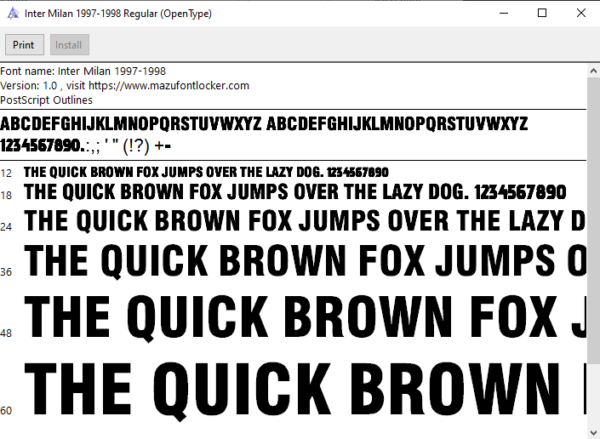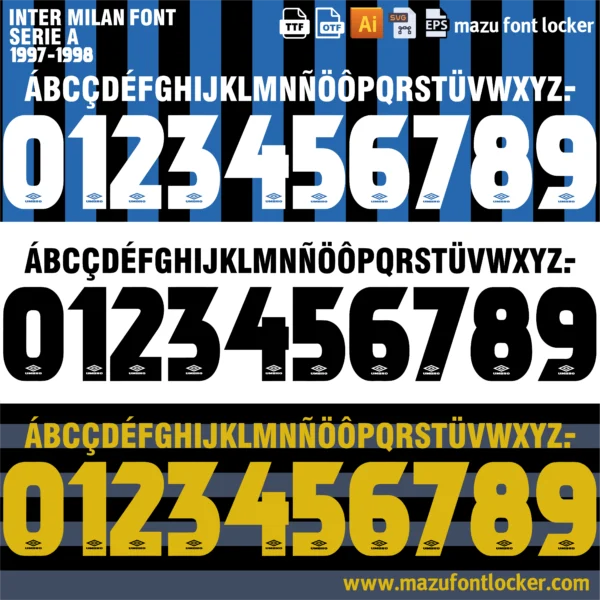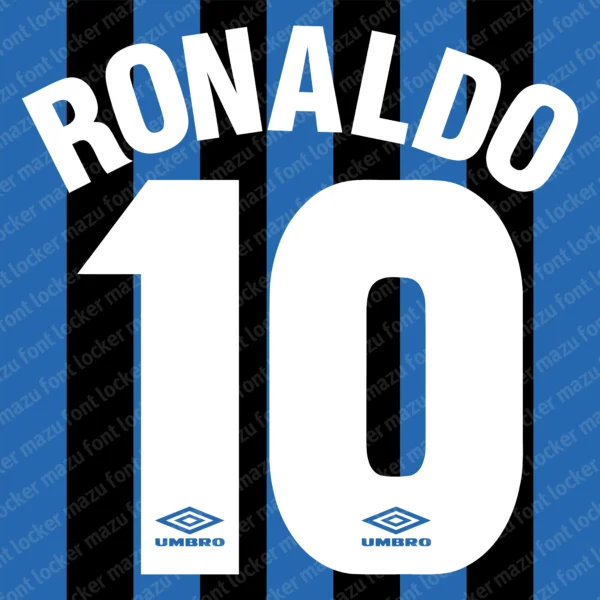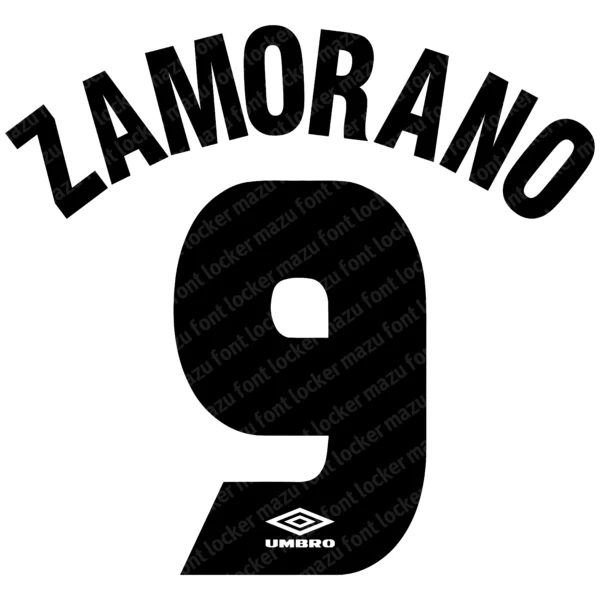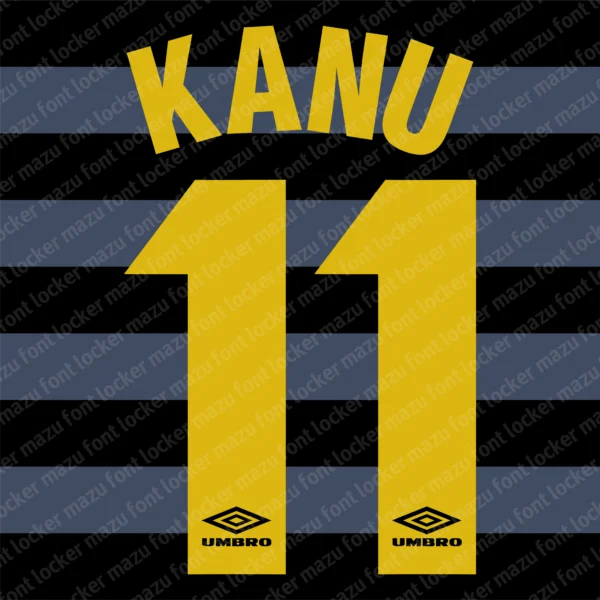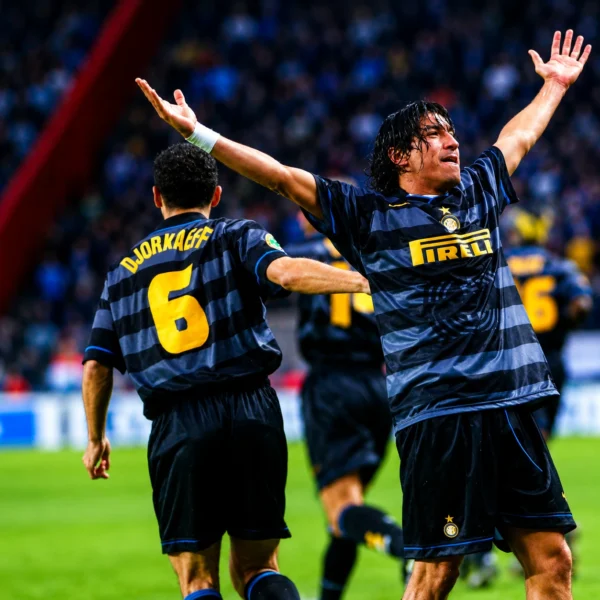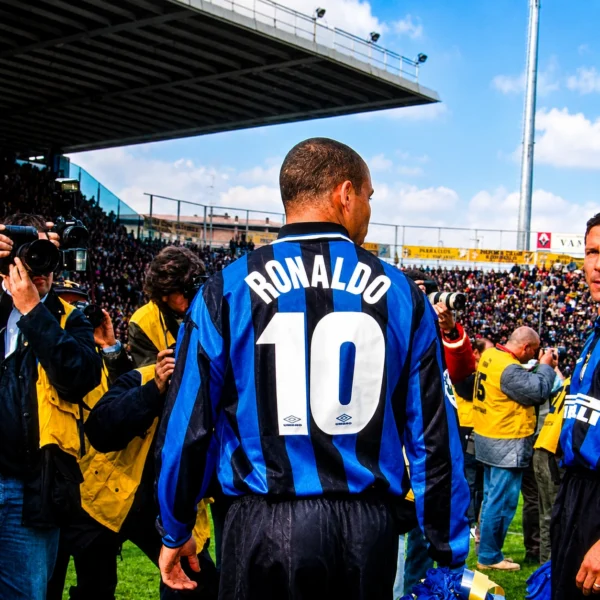
Inter Milan 1997-1998 Font Vector – Explosive Vintage Italian Club Masterpiece
Inter Milan 1997-1998 Font – Authentic Nerazzurri Typeface
The Inter Milan 1997-1998 Font is a premium typeface that accurately recreates the official match lettering worn by Inter Milan during the iconic 1997-1998 season. This high-quality font kit captures the bold, classic, and elegant typography that represents one of the most memorable eras in the club’s history.
Designed for professional designers and passionate Inter fans, the Inter Milan 1997-1998 Font delivers perfect authenticity for creating retro jersey mockups, fan merchandise, matchday posters, social media graphics, and much more. It blends beautifully with the club’s legendary blue-and-black stripes from that golden period.
This font stands out because of its sharp details and strong historical identity. Every letter and number is crafted to match the exact style used on the players’ shirts during the 1997-1998 season. Whether you are making realistic retro shirt templates or nostalgic football content, the Inter Milan 1997-1998 Font gives your designs that authentic Nerazzurri look.
The letterforms in the Inter Milan 1997-1998 Font are tall, bold, and highly readable. The strokes have a strong and controlled weight that looks powerful on the back of jerseys while maintaining excellent clarity and timeless elegance.
The numerals use bold curves and firm edges, giving them a confident and premium appearance. This design ensures great legibility whether used in large print formats, digital mockups, or video content.
Inter Milan in the 1997-1998 Season
The 1997-1998 season was a memorable campaign for Inter Milan. Featuring the legendary Brazilian striker Ronaldo (O Fenômeno) alongside stars like Javier Zanetti, Roberto Baggio, Youri Djorkaeff, and Ivan Zamorano, the Nerazzurri reached the UEFA Cup final and delivered thrilling football at the San Siro. This era remains one of the most beloved among Inter fans worldwide. For the latest news and updates about Inter Milan, visit the official Inter Milan website.